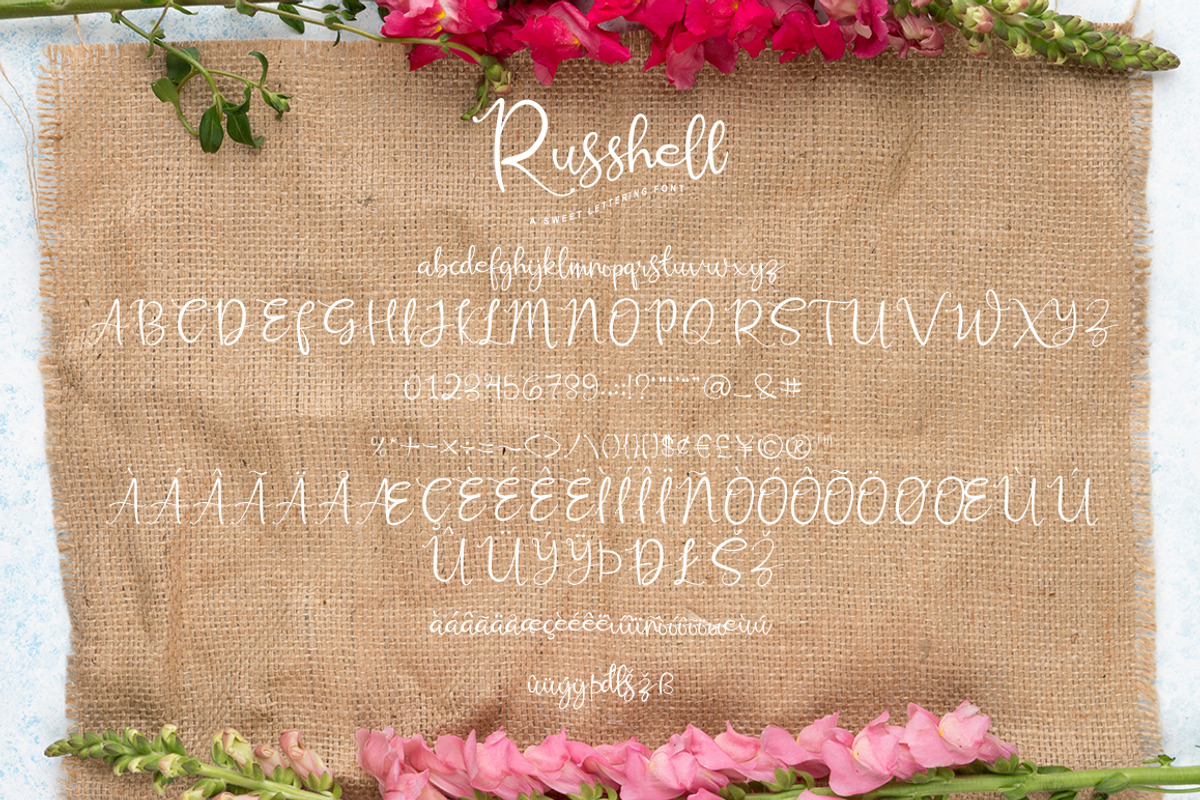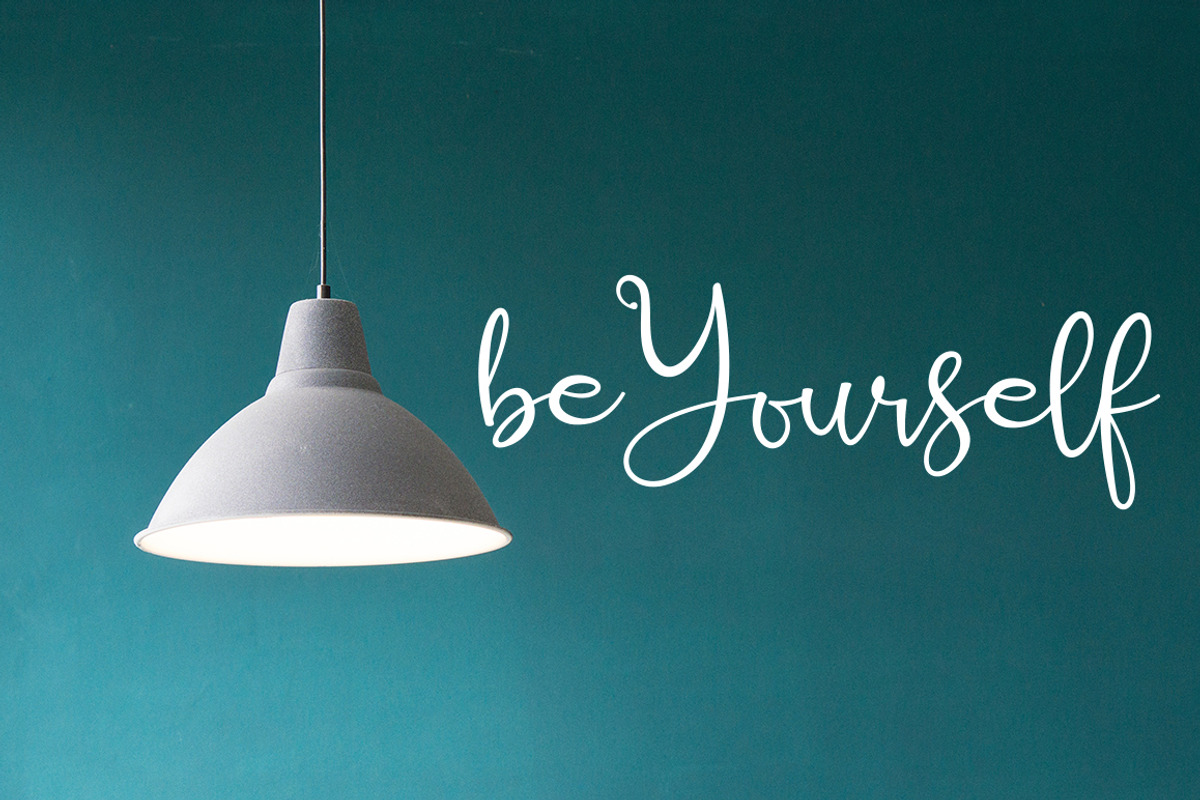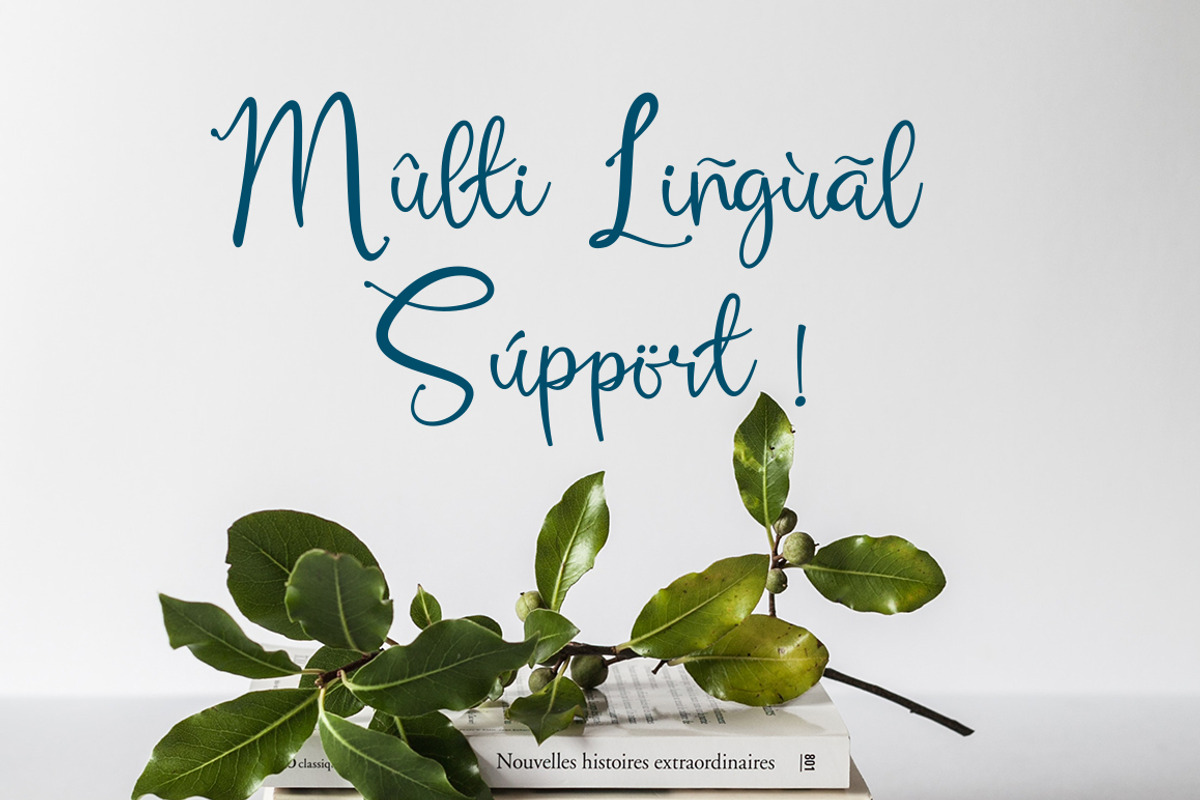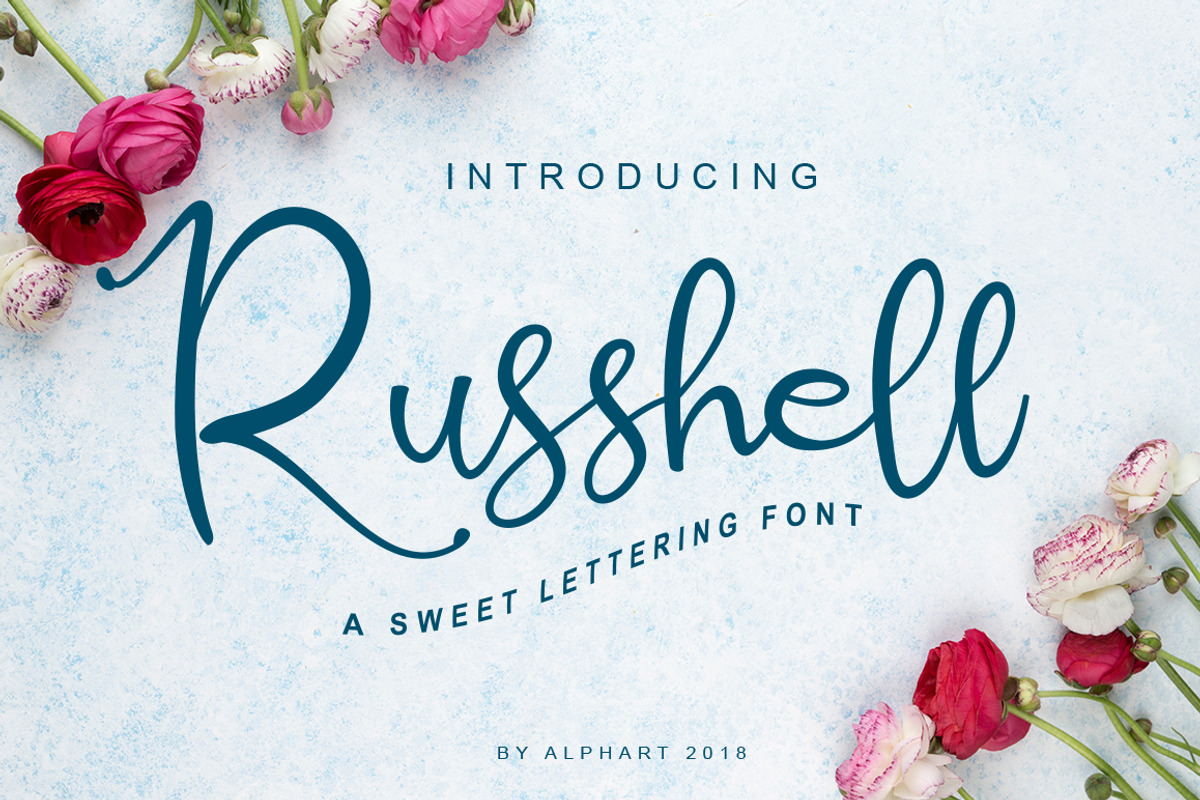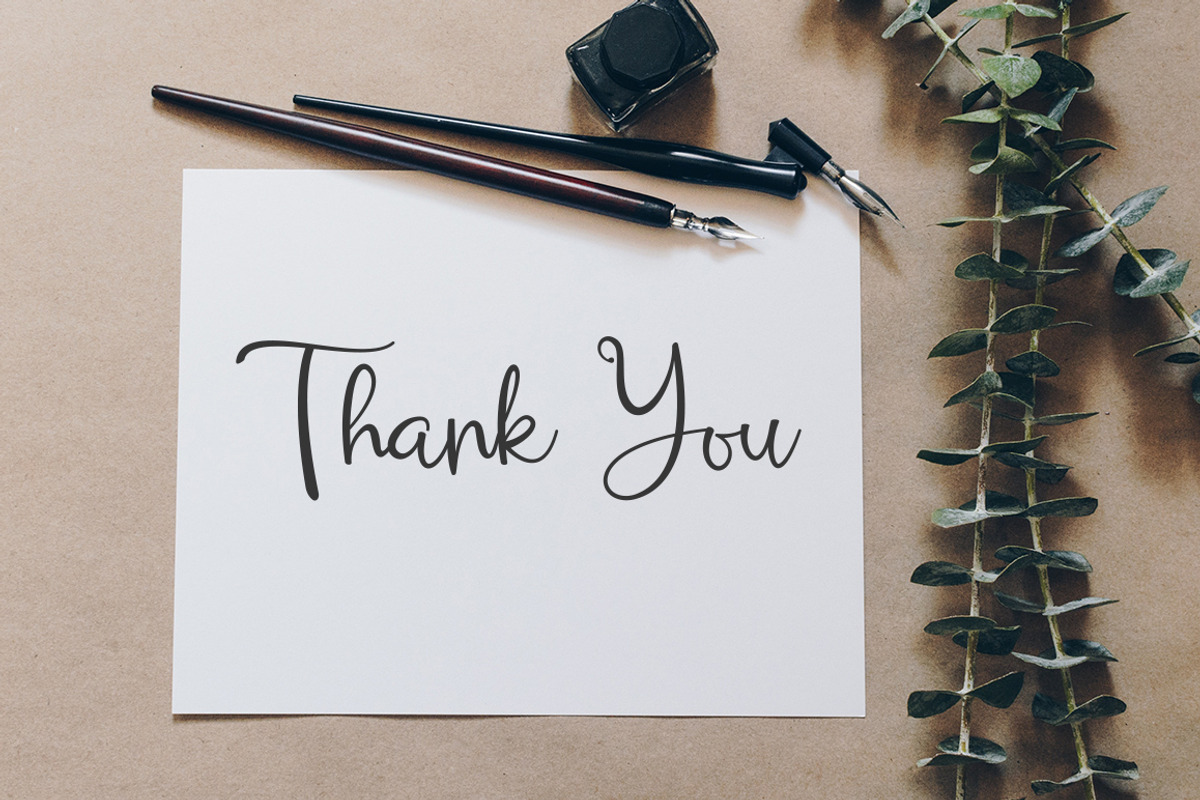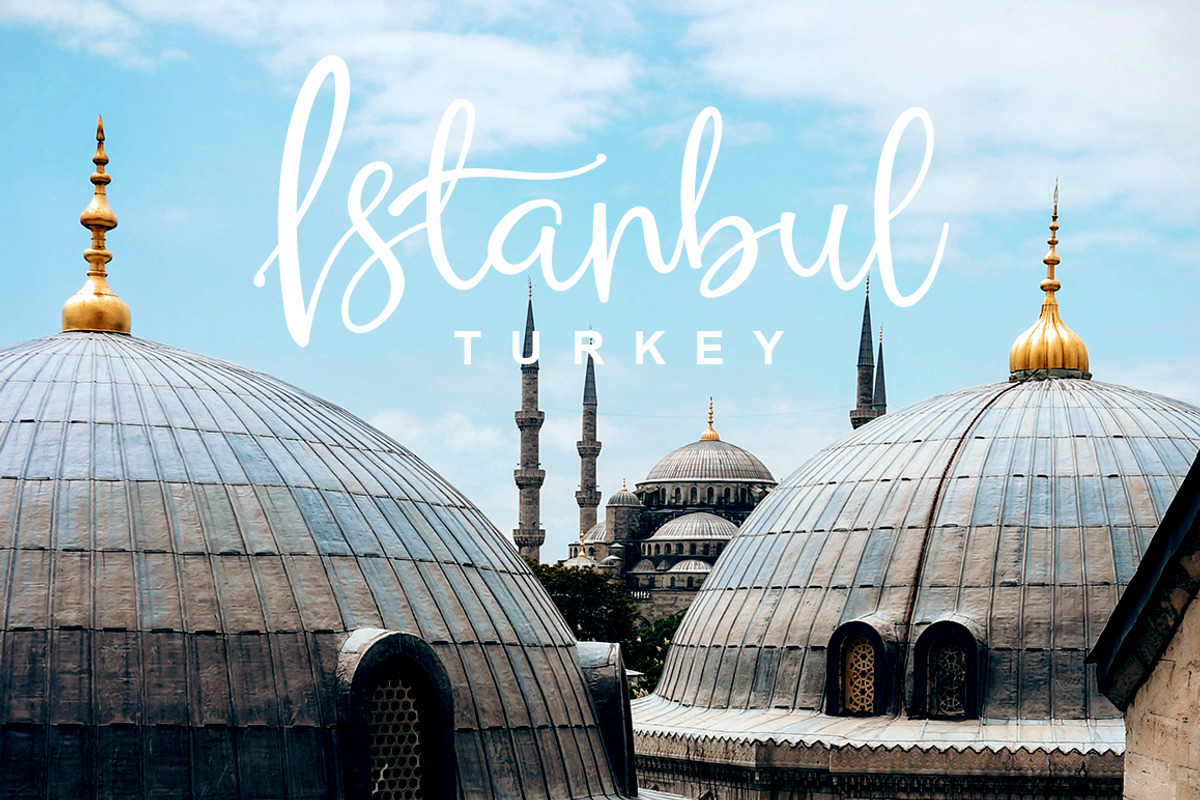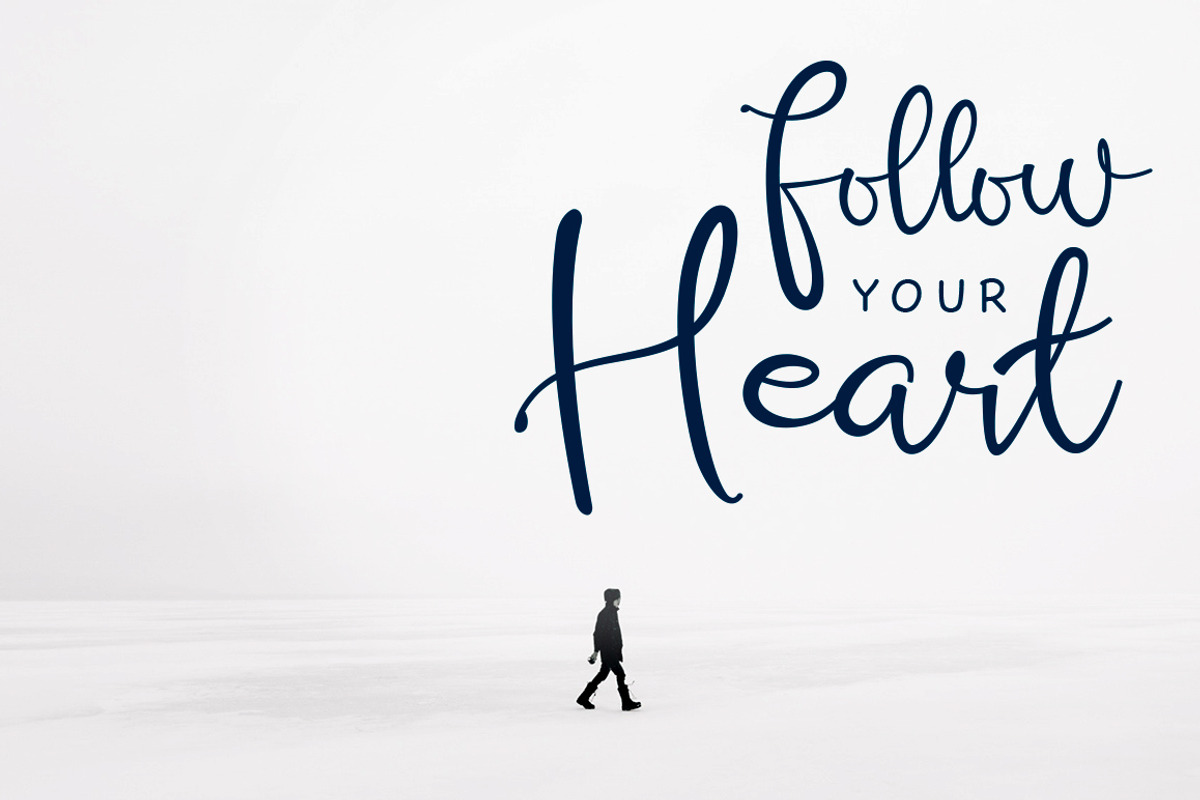
Russhell a sweet lettering font
Russhell a sweet lettering font - a new modern & fresh script with a handwritten and script style make this font looks cute, elegant, stylish and perfect for any awesome projects that need lettering taste.
Russhell would perfect for watermark, social media posts, advertisements, logos & branding, invitation, product designs, label, stationery, wedding designs, product packaging, special events or anything that need lettering taste.
Russhell also includes full set of uppercase and lowercase letters, multilingual symbols, numerals, punctuation. The font has smooth wet ink texture, so would be perfect for all types of printing techniques+you can do embroidery, laser cut, gold foil etc.
Features : ligature alternate multi lingual